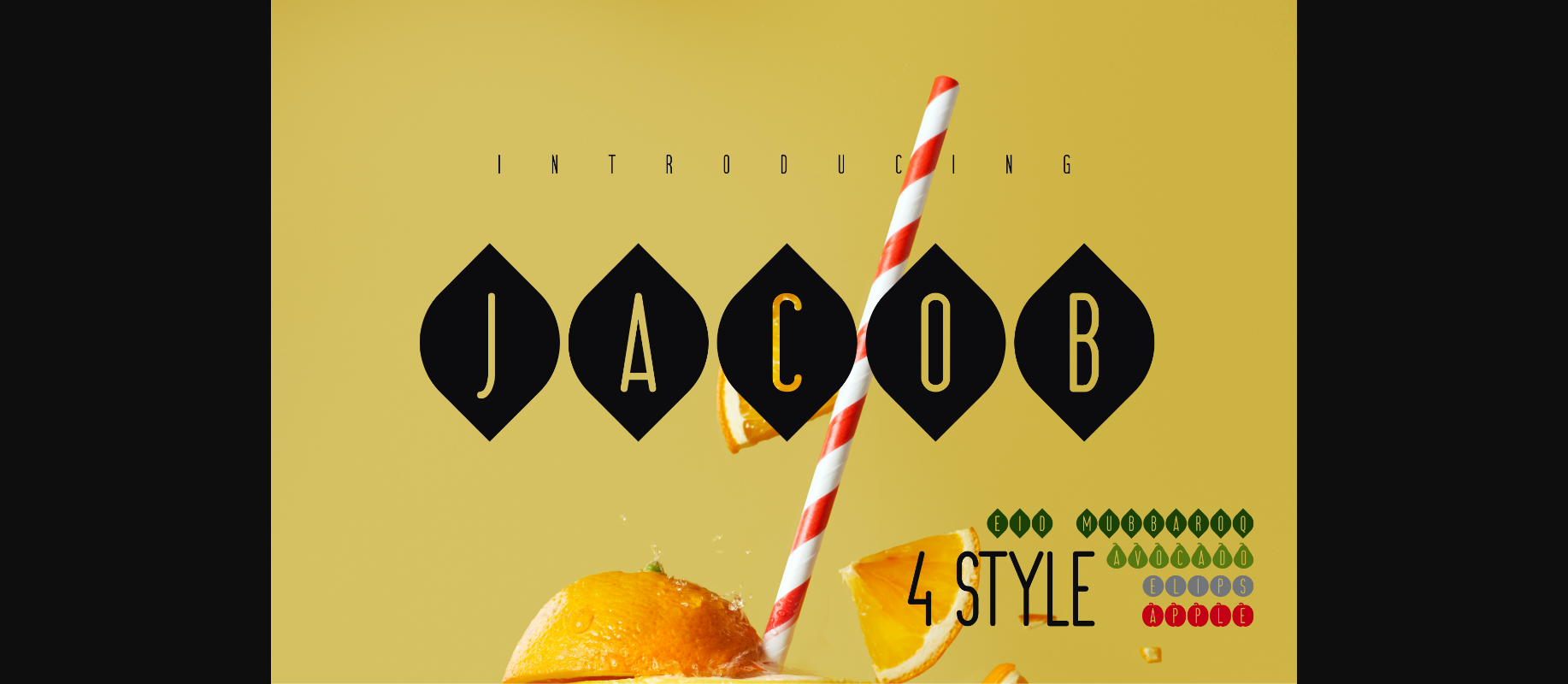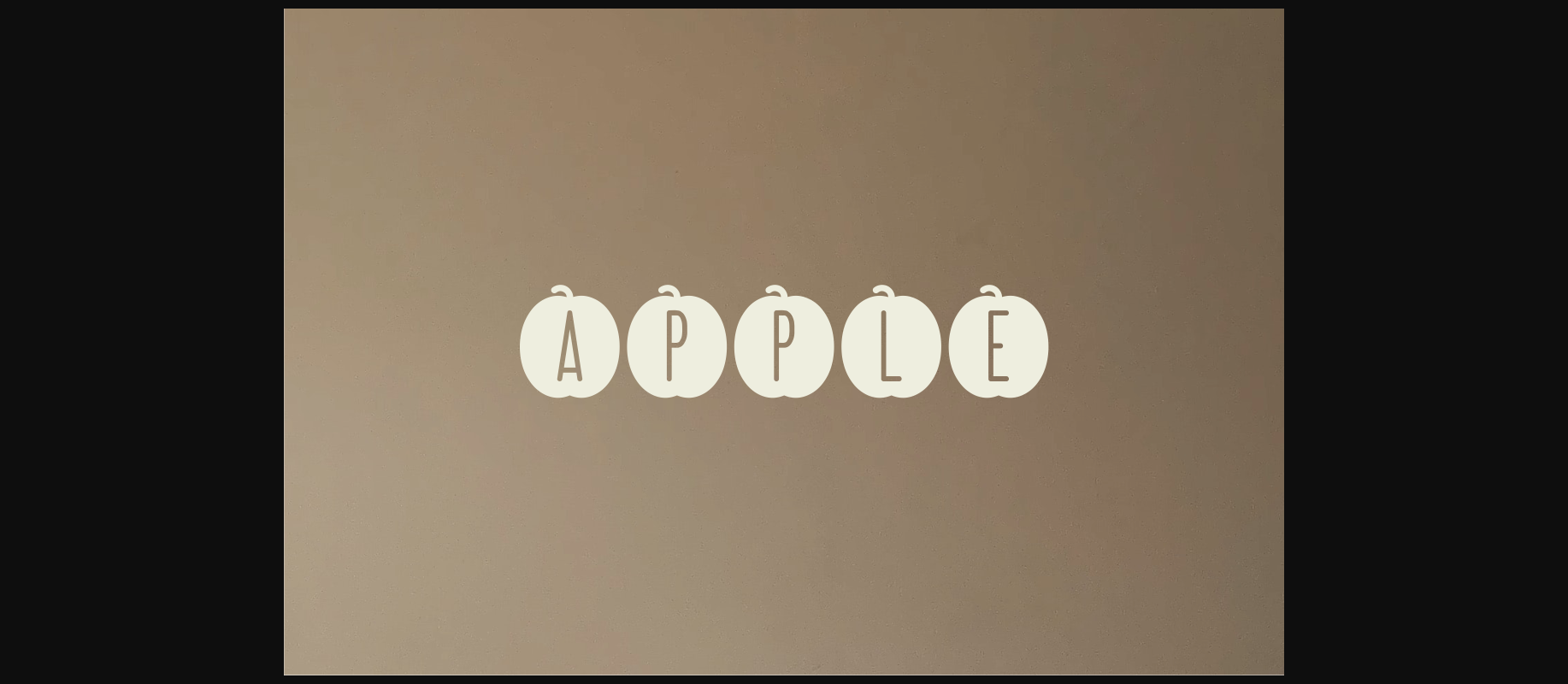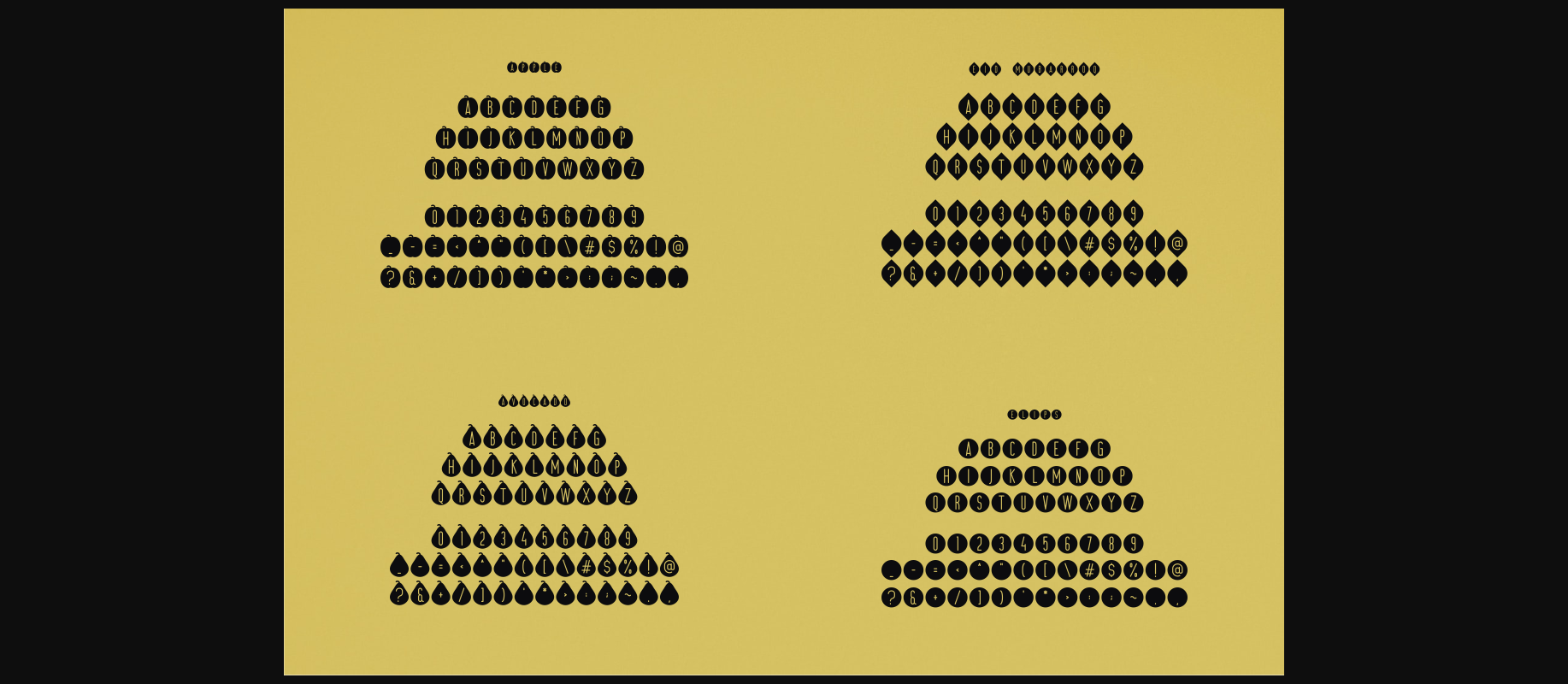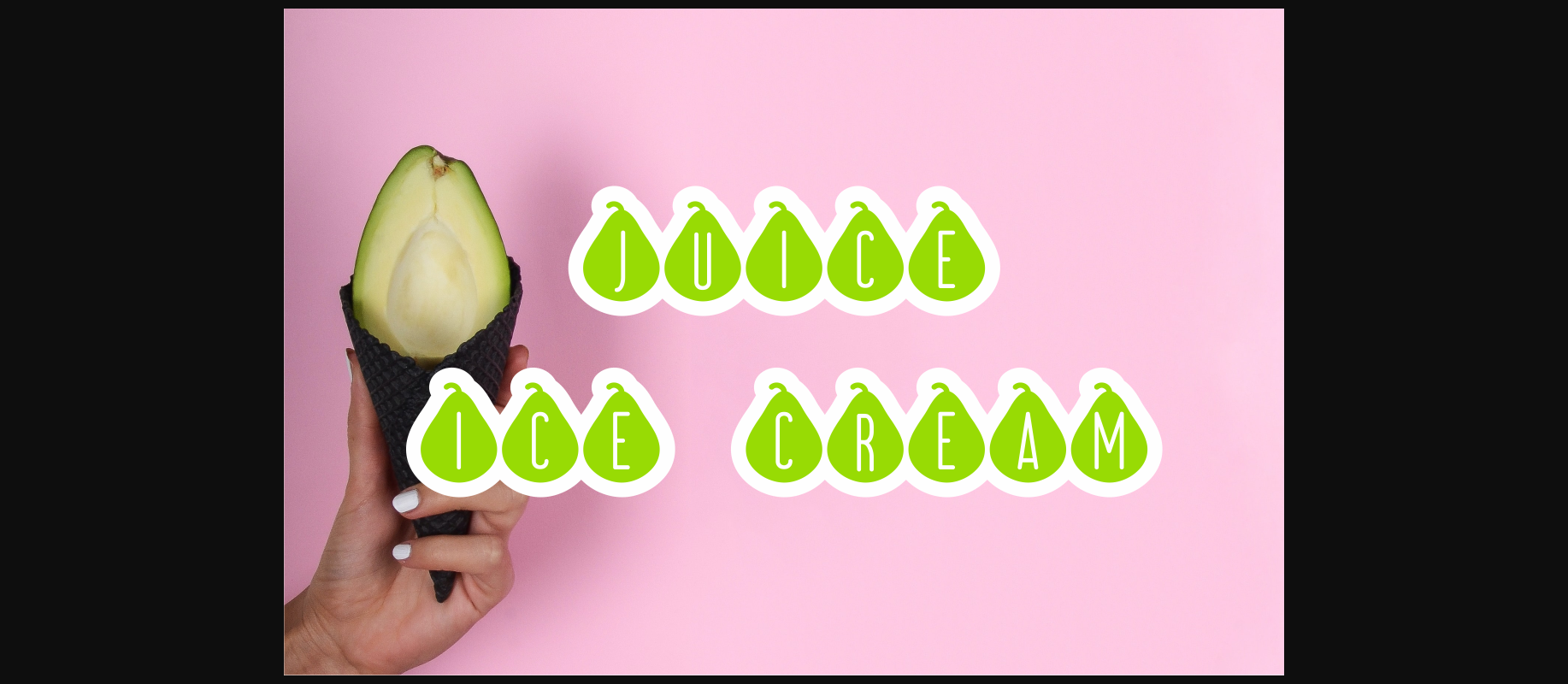
About Jacob Font
Jacob is a lovely decorative font family including fonts with characters shaped like avocados, apples, diamonds, or circles. It is expected to be used in related matters to represent your creative work in the best way possible!